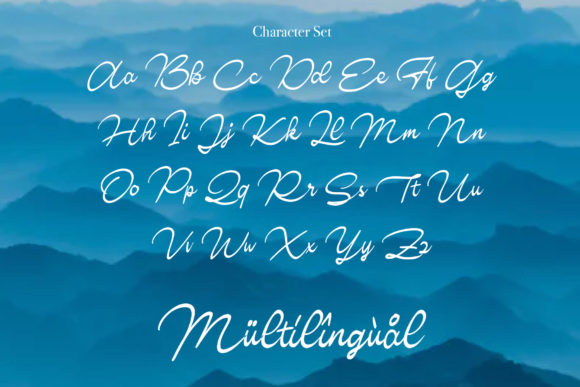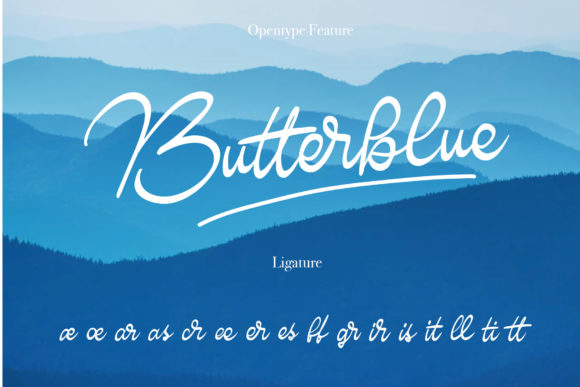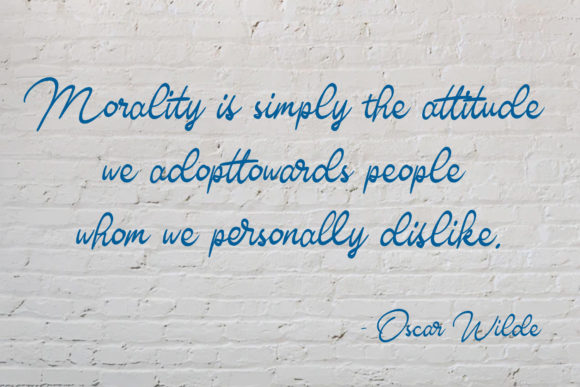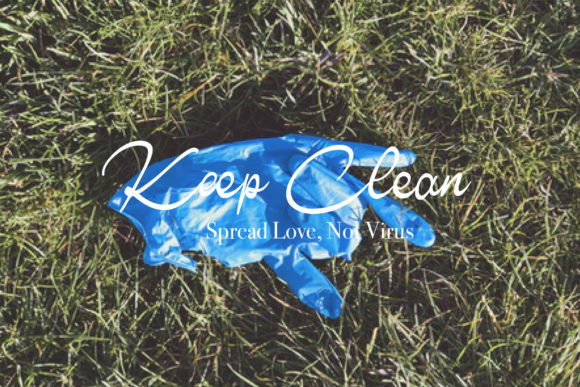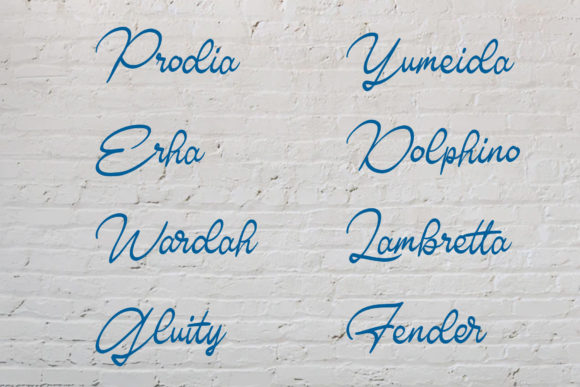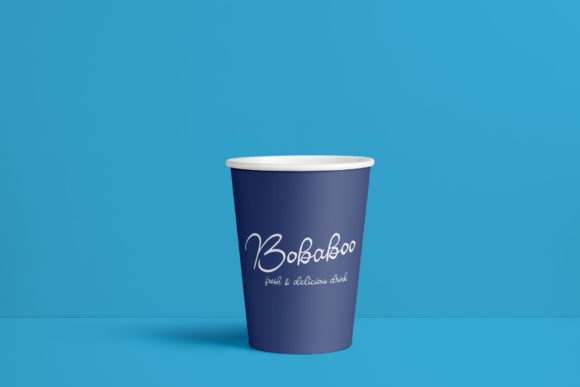
The Elegance of Bardistan Font: A Designer’s Delight
I still remember the time I was working on a project for a client who wanted a elegant and sophisticated look. I had spent hours scouring the internet for the perfect font, but nothing seemed quite right. That was until I stumbled upon Bardistan Font. Its delicate, flowing script immediately caught my eye, and I knew I had found the one. In this article, I’ll share my experience with Bardistan Font, its features, and how to make the most of it in your designs.
An Honest Review of Bardistan Font
- ✨ Delicate and elegant design that adds a touch of sophistication to any project
- ✅ Well-balanced characters that make it easy to read and understand
- 💫 Beautifully crafted to match a wide range of designs, from modern to vintage
- 🎨 Highly versatile and can be used for various design projects, including branding, packaging, and more
While Bardistan Font is an excellent choice, there are a few things to keep in mind:
- ⚠️ May not be suitable for very large or very small font sizes, as some details may get lost
- 🤔 Limited availability of certain characters or glyphs, but this can be addressed with OpenType features
- Experiment with OpenType features, such as stylistic alternates and glyphs, to add more variety to your text
The Story Behind Bardistan Font
Bardistan Font was designed with the goal of creating a elegant and sophisticated script font that would add a touch of refinement to any design. The designer, inspired by the beauty of handwritten scripts, crafted each character with care and attention to detail. The result is a font that is both beautiful and functional.
A: Bardistan Font is highly versatile and can be used for a wide range of designs, from modern to vintage. Experiment with different font sizes, colors, and OpenType features to find the look that works best for your project.
A: While Bardistan Font is beautiful and elegant, it may not be the best choice for body text due to its script nature. However, it can be used for shorter paragraphs or headings to add a touch of sophistication to your design.